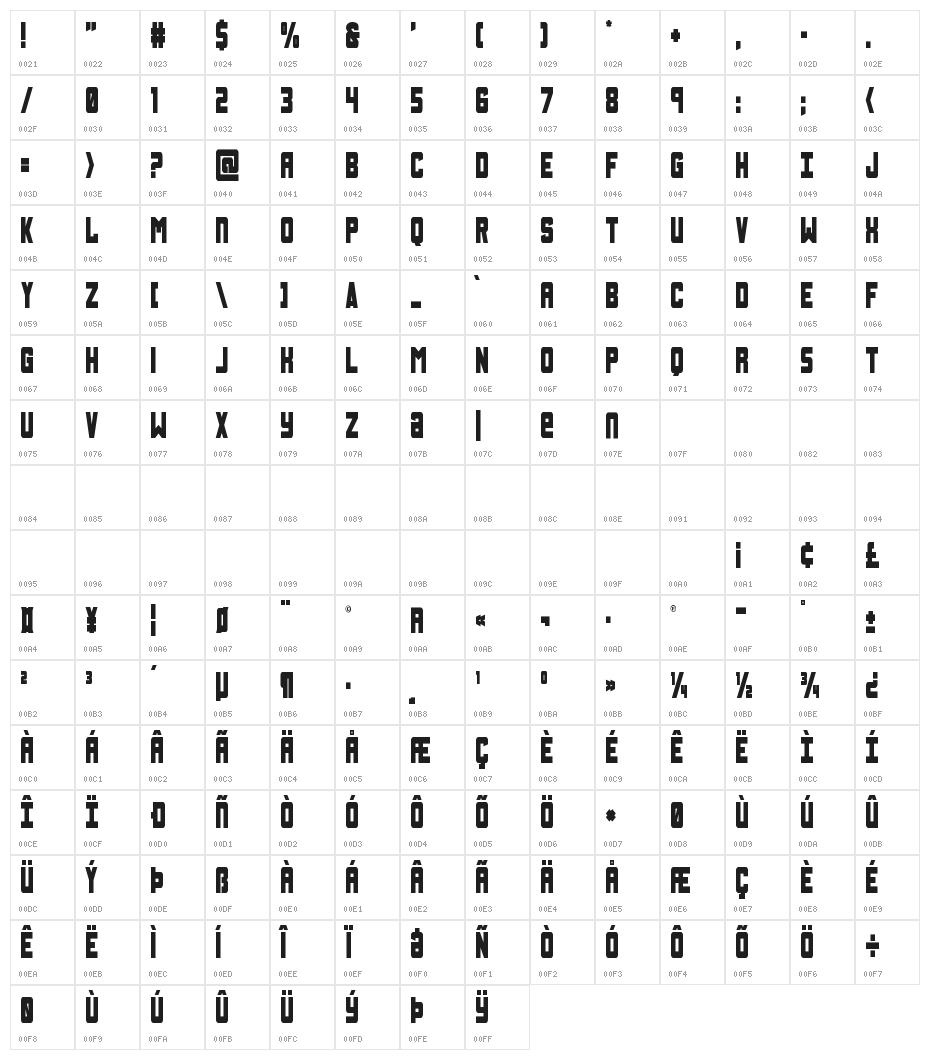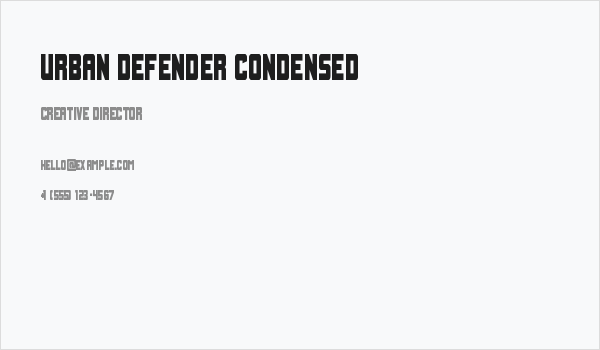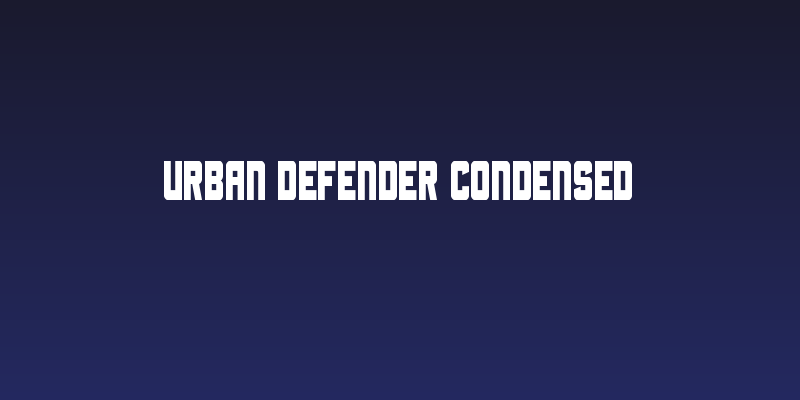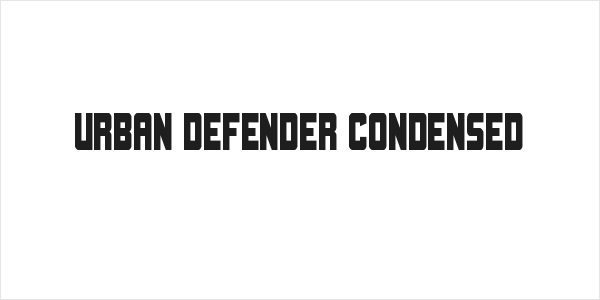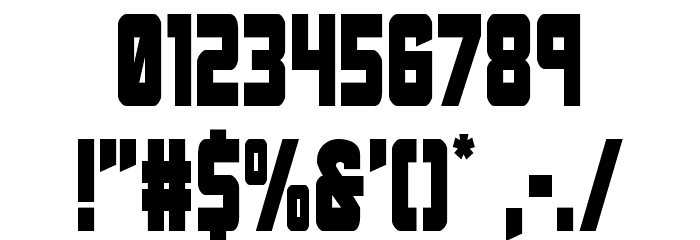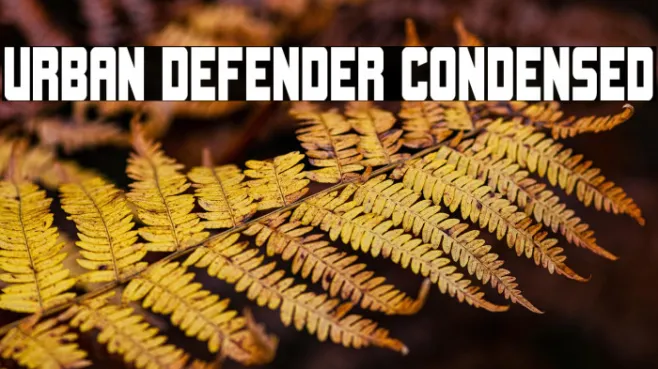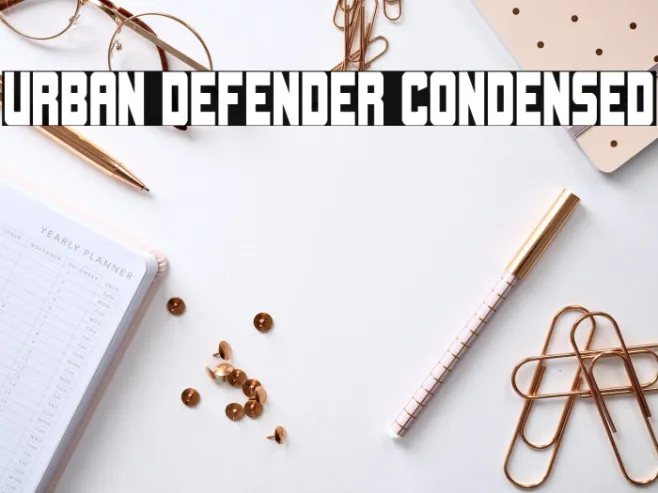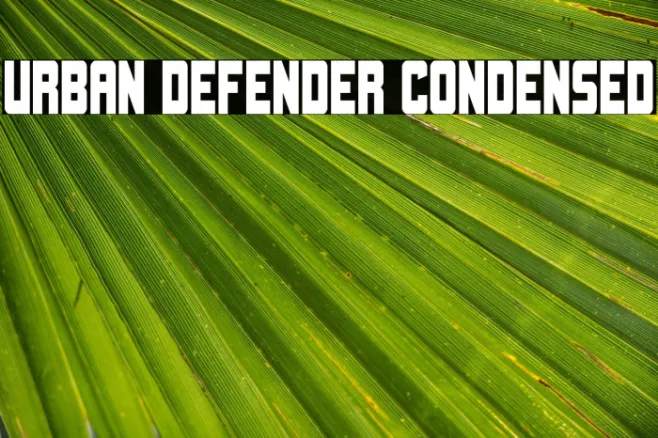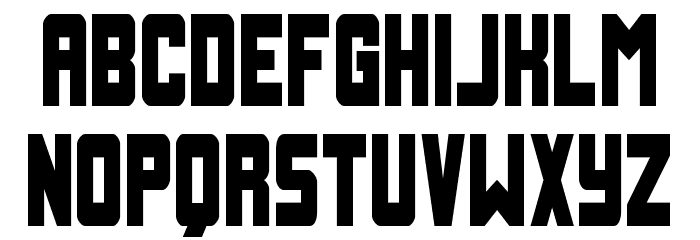
Urban Defender Condensed Font
Urban Defender Condensed Description
This font features a bold and condensed style with strong geometric shapes and a modern aesthetic. The uppercase letters are uniform in height, creating a cohesive and structured appearance. The characters have a blocky, angular design that conveys strength and stability. The numbers and special characters maintain the same boldness and geometric precision, ensuring consistency across all glyphs. The font's condensed nature allows for efficient use of space, making it ideal for impactful headlines and titles.